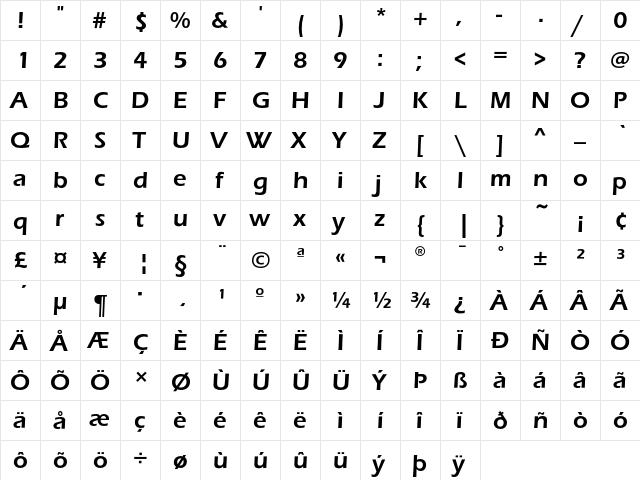
ErasEF Demi
Design Context for ErasEF Typeface
ErasEF is a composed and adaptable typeface that performs quietly and consistently across a wide range of design contexts.